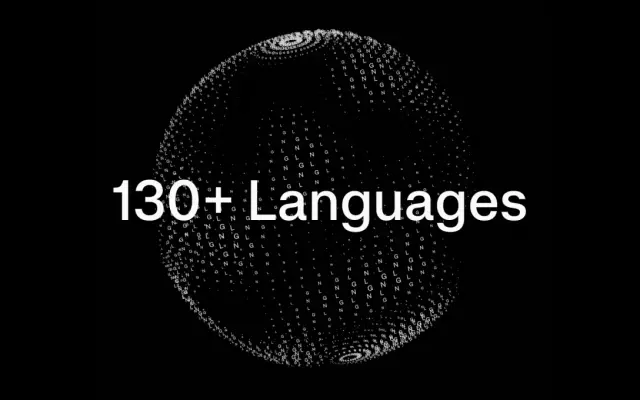
Fabric Grotesk
Fontfabric · Ani Dimitrova, Vika Usmanova, Leon Hugues, Kiril Zlatkov · 2026
A neo-grotesque from Fontfabric drawing on the Swiss International Style, offered in 18 static styles plus a variable font with Extended Latin and Cyrillic support.
Inspired by the visual clarity of Armin Hofmann and Josef Müller-Brockmann, Fabric Grotesk uses clean horizontal and vertical terminals with carefully balanced curves across nine weights from Thin to Black, each with a matching italic. A display-oriented stylistic set shifts the character from quietly functional body copy to something sharper and more angular in headlines, and Bulgarian Cyrillic forms are included alongside a full OpenType feature set. It positions itself as a general-purpose workhorse for branding, editorial, screen and packaging work.
Fontfabric explicitly classify it as Neo-Grotesk, citing the Swiss and International Graphic Style as its primary inspiration; clean horizontal and vertical terminals with uniform construction place it firmly in the Helvetica lineage.